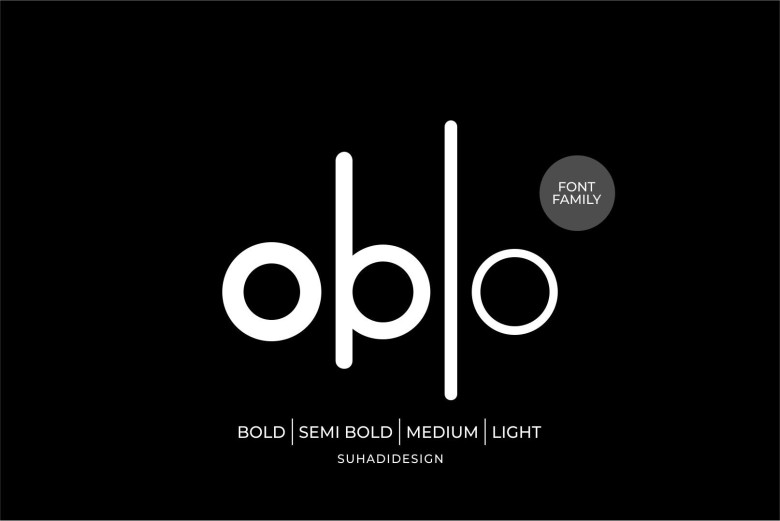
Oblo Font
Oblo is a Sans Serif Cool Font Family. In fact, the new hit cool modern sans serif font has come in, which is the font many ladies and gentlemen are turning to. Namely oblo. Oblo font is an exquisite sans serif font containing the latest simple style; it is used mostly in the market. Thus, we maintain this font neat, clean, pretty and as if it belongs to the upper class.
It is ideal for logos, brand images, brand, fashion, motivation, beauty, magazines, designs, books, publications, brand names, business cards, and social media, classy design, newspapers, and other related projects.
Oblo Sans Serif Font